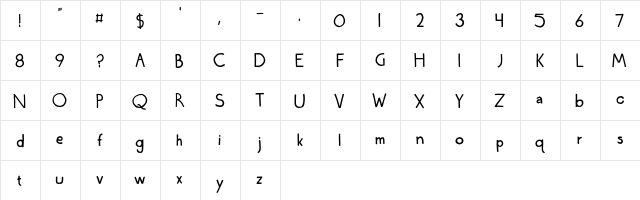
Wednesday Lettering Practice Regular
| Foundry | PYRS Fontlab Ltd. / Made with FontLab |
| Designer | Alex |
Design Context for Wednesday Lettering Practice Typeface
Wednesday Lettering Practice takes a measured approach to typography — its balanced proportions and neutral character make it a reliable workhorse for both digital and print work.